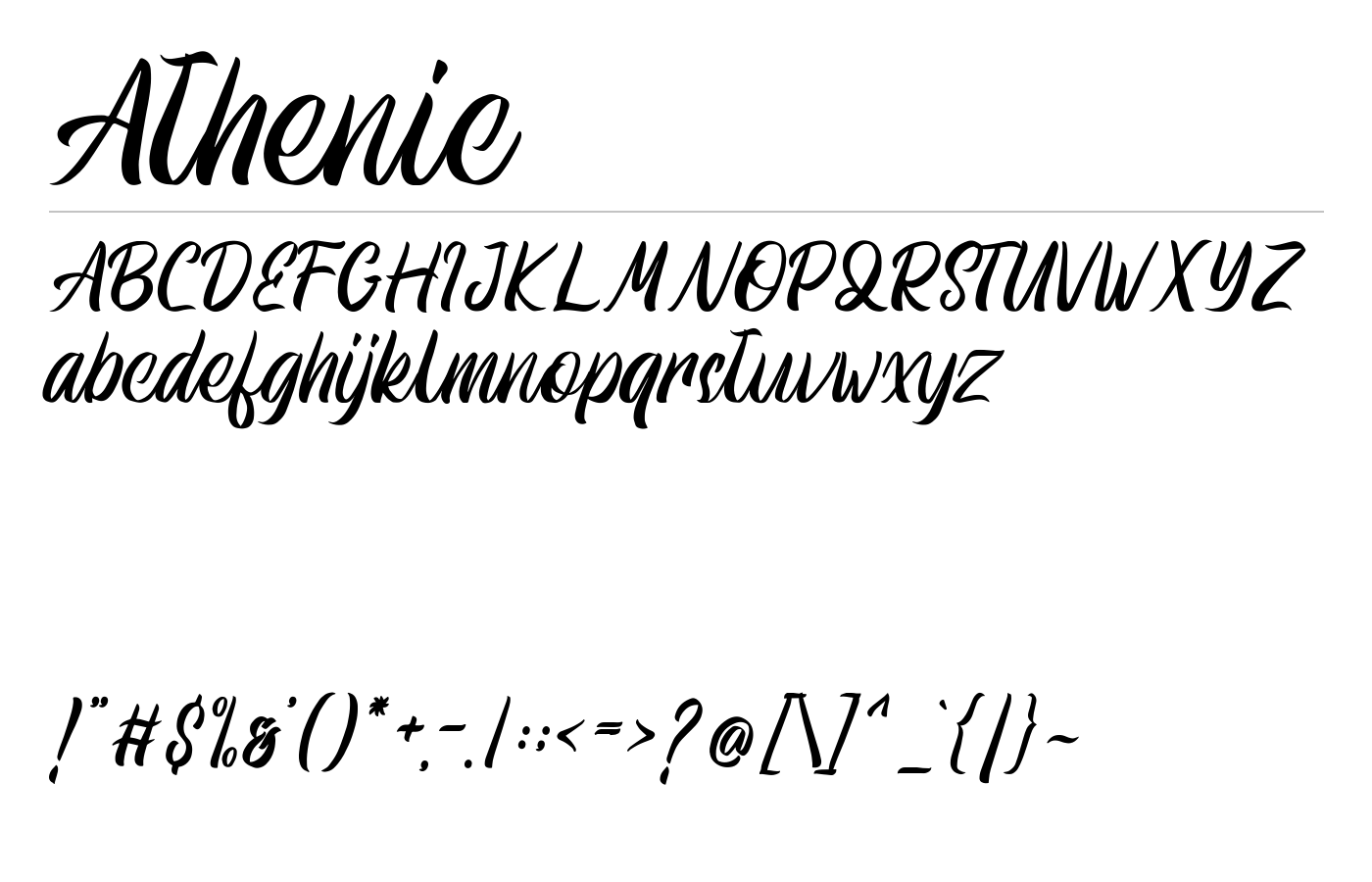
Athenic is a stylish script font with a lively, hand-lettered feel. It features smooth, flowing strokes with moderate contrast and a slight slant, giving it an elegant yet approachable personality perfect for branding, invitations, and creative headlines. Its unique letterforms and casual charm make it ideal for projects that seek a personal and artistic touch.
Athenic Font
About Athenic Font
| Font family | Athenic Font |